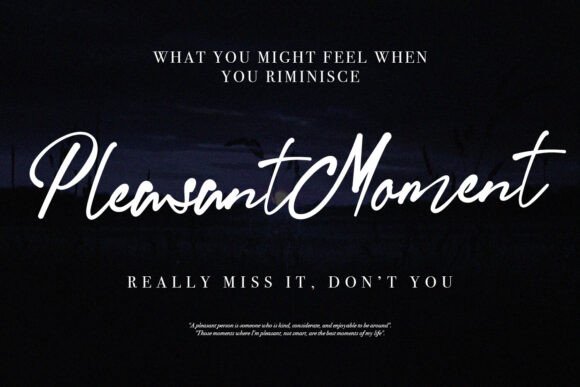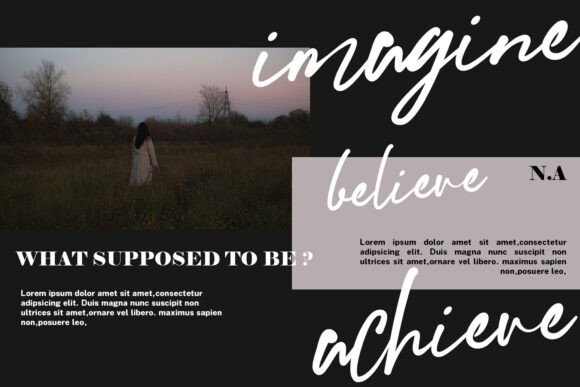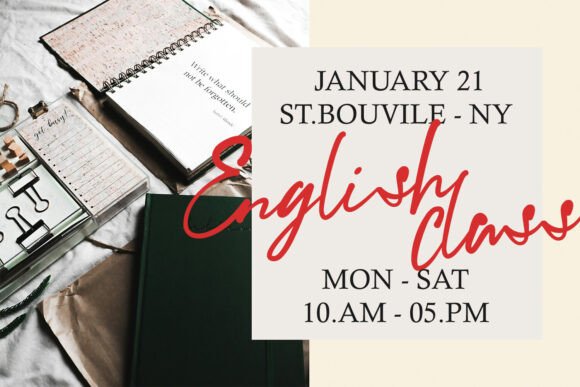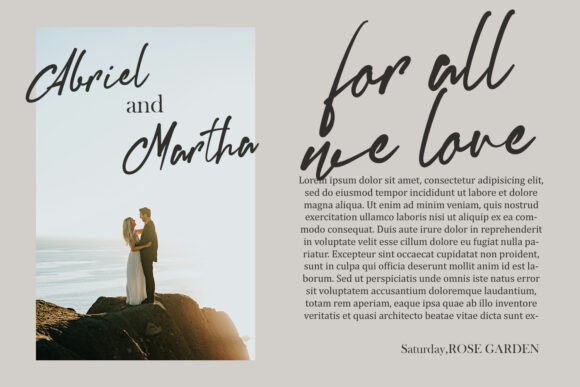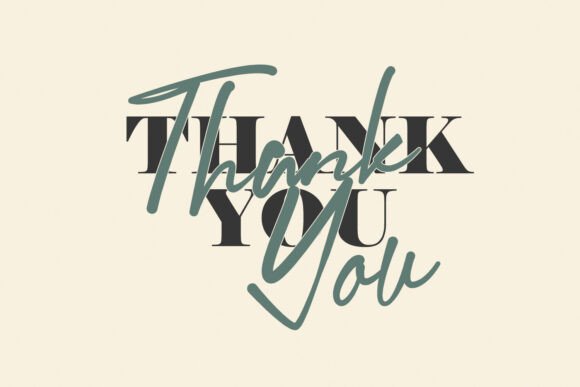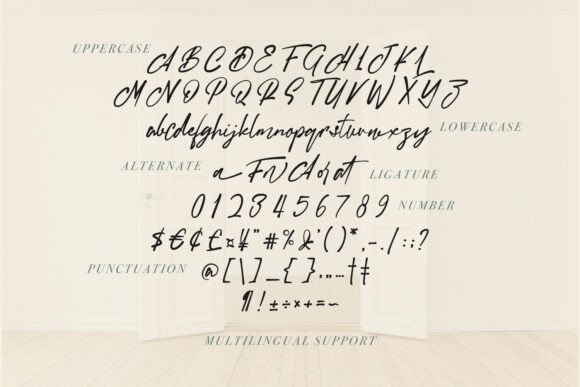
Introducing Asora Fiatn Font: Elevate Your Designs with an Authentic Brush-Handcrafted Feel
Are you tired of using generic, overused fonts in your designs? Do you want to add a personal touch that sets your work apart? Look no further than the Asora Fiatn Casual Signature Script Font. This beautifully crafted font is designed to give your designs an authentic, brush-handcrafted feel that’s sure to capture attention.
What is Asora Fiatn Font?
The Asora Fiatn Casual Signature Script Font is a unique and elegant script font that’s perfect for adding a touch of personality to your designs. With its handcrafted, brush-stroked feel, this font is ideal for creating custom signatures, logos, stationery, and more. Whether you’re a designer, crafty DIY enthusiast, or small business owner, this font is sure to become a valuable addition to your toolkit.
Key Features of Asora Fiatn Font
- Authentic Brush-Handcrafted Feel: The Asora Fiatn Font boasts a genuine, handcrafted look that’s reminiscent of traditional brush calligraphy.
- Casual Signature Script Style: This font features a relaxed, casual script style that’s perfect for creating custom signatures, quotes, and typography.
- Highly Versatile: Use the Asora Fiatn Font for a wide range of design applications, including logos, stationery, website headers, branding, and more.
- Easily Readable: Despite its handcrafted feel, the Asora Fiatn Font remains highly legible, making it suitable for both digital and print applications.
Use Cases for Asora Fiatn Font
The Asora Fiatn Casual Signature Script Font is incredibly versatile, making it suitable for a wide range of design applications. Here are some ideas to get you started:
- Signatures: Add a personal touch to your emails, letters, and documents with a custom signature created using the Asora Fiatn Font.
- Stationery: Create custom stationery, including letterheads, business cards, and envelopes, that showcase your brand’s personality.
- Logo Design: Use the Asora Fiatn Font as a basis for your logo design, or incorporate it into your existing logo for a more personalized look.
- Typography Quotes: Create stunning typography quotes that showcase your favorite phrases or lyrics.
- Website Headers: Add a touch of elegance to your website headers with the Asora Fiatn Font.
- Branding: Use the Asora Fiatn Font consistently across your branding materials to create a cohesive, recognizable identity.
Benefits of Using Asora Fiatn Font
By incorporating the Asora Fiatn Casual Signature Script Font into your designs, you’ll enjoy a range of benefits, including:
- Unique and Memorable Designs: The Asora Fiatn Font will help your designs stand out from the crowd and leave a lasting impression on your audience.
- Personal Touch: Add a personal touch to your designs that reflects your personality or brand identity.
- Flexibility: The Asora Fiatn Font is highly versatile, making it suitable for a wide range of design applications.
- Ease of Use: The font is easy to read and works well in both digital and print applications.